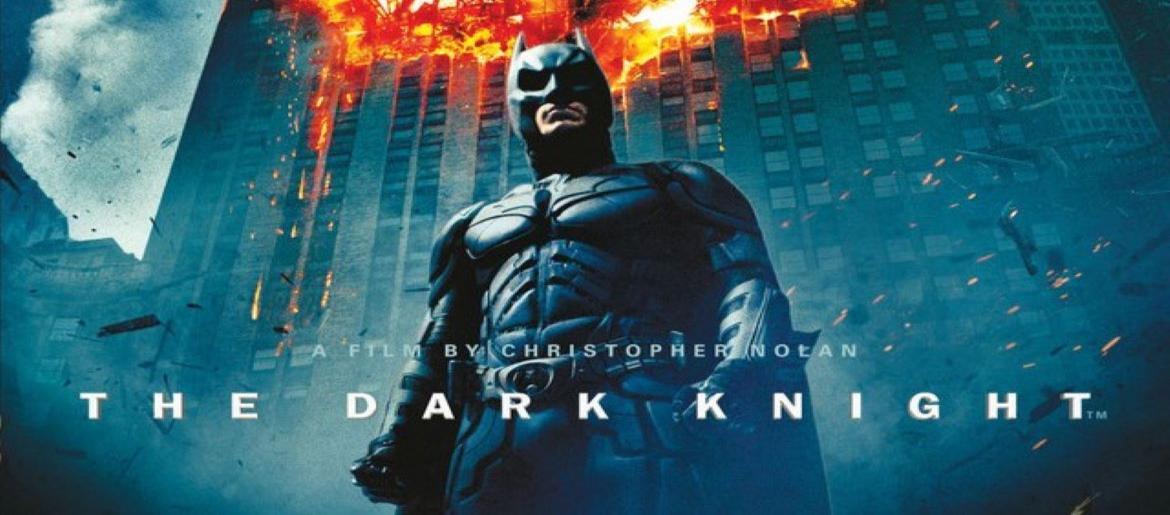
Batman The Dark Knight Font
Batman The Dark Knight Font immediately calls to mind Christopher Nolan’s groundbreaking Batman film series. Recognized for its intense aesthetic and memorable visuals, the movie’s distinctive branding established this typeface as a defining element of modern superhero cinema. The angular, geometric letterforms combined with the legendary bat emblem perfectly embody the brooding, atmospheric world of Gotham City.
Released in 2008, The Dark Knight transcended the superhero category through its complex narrative, memorable performances, and striking visual design. Much like the film itself, this typography conveys a sense of authority, enigma, and formidable presence. Creators and enthusiasts frequently seek out this lettering style for tribute artwork, promotional designs, and projects that aim to capture the Caped Crusader’s shadowy universe.
While Warner Bros. and DC Comics haven’t published an official typeface, several dedicated recreations successfully emulate the cinematic style. The most prominent is the Gotham Knights Font, which captures the substantial, film-quality appearance of the marketing materials. Another well-known version is the Dark Knight Rises Font, crafted to reflect the powerful typography from the trilogy’s concluding chapter.
The ongoing relevance of this typography demonstrates how lettering can fundamentally shape a film’s visual identity. In the same way Batman emerged as an emblem of justice and determination, this font remains a source of inspiration for designers seeking to incorporate bold, cinematic impact into their creative endeavors.